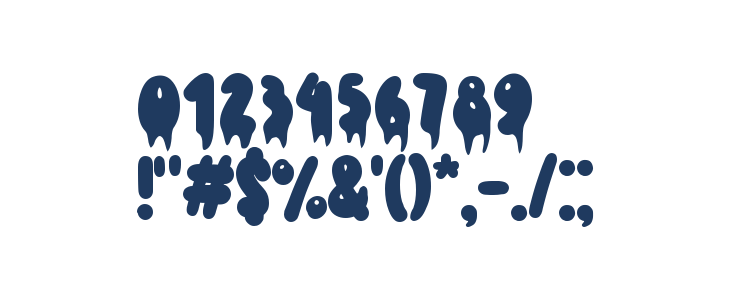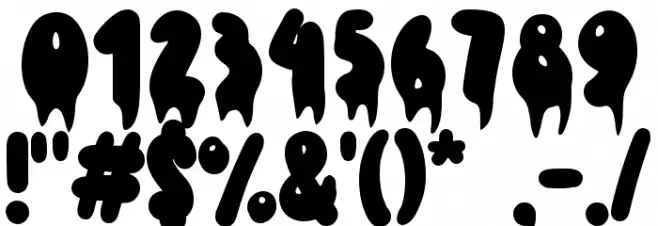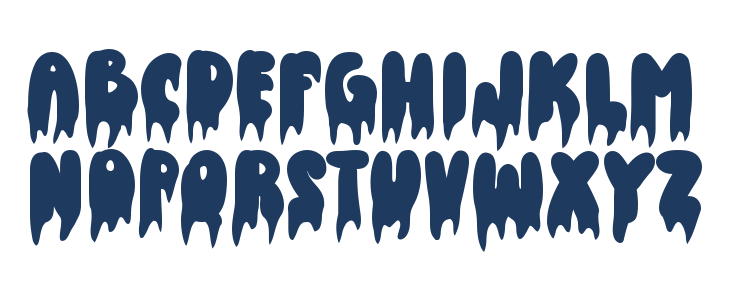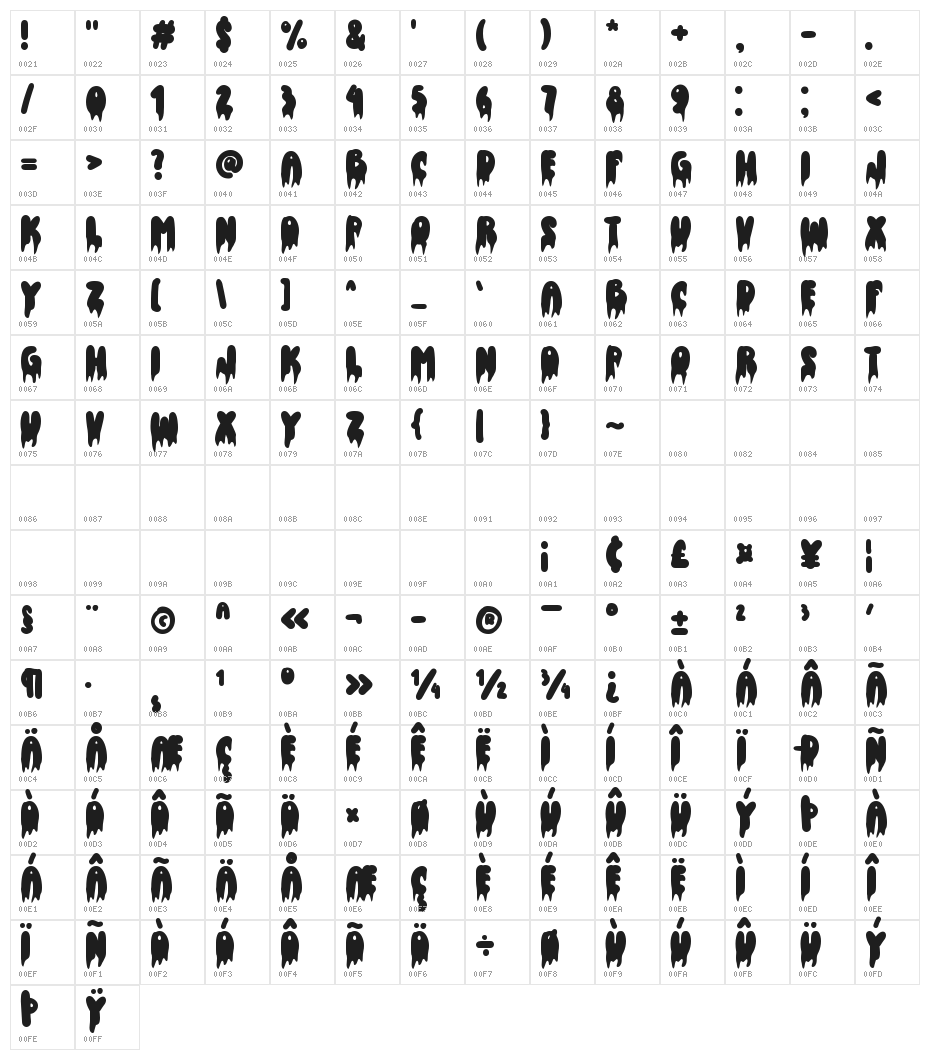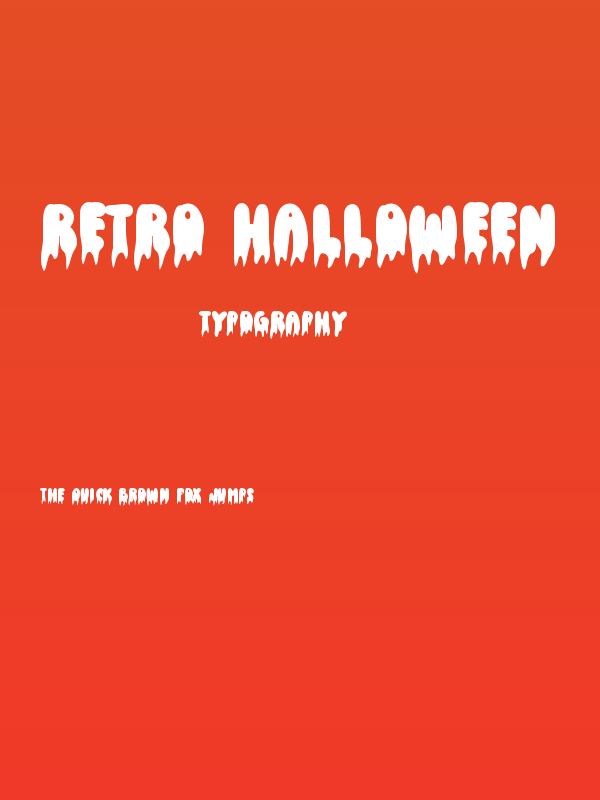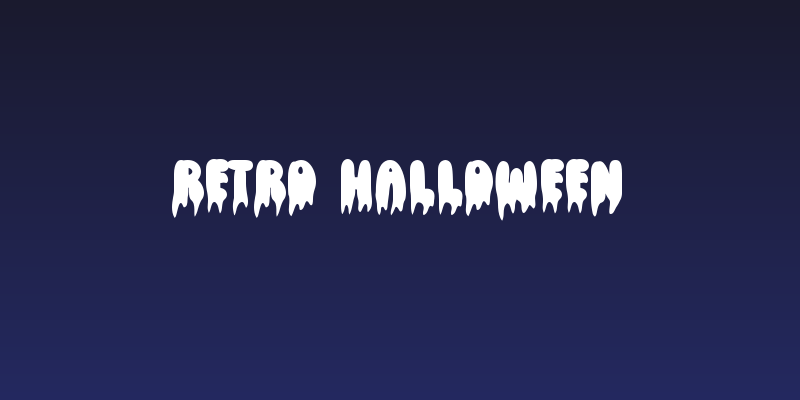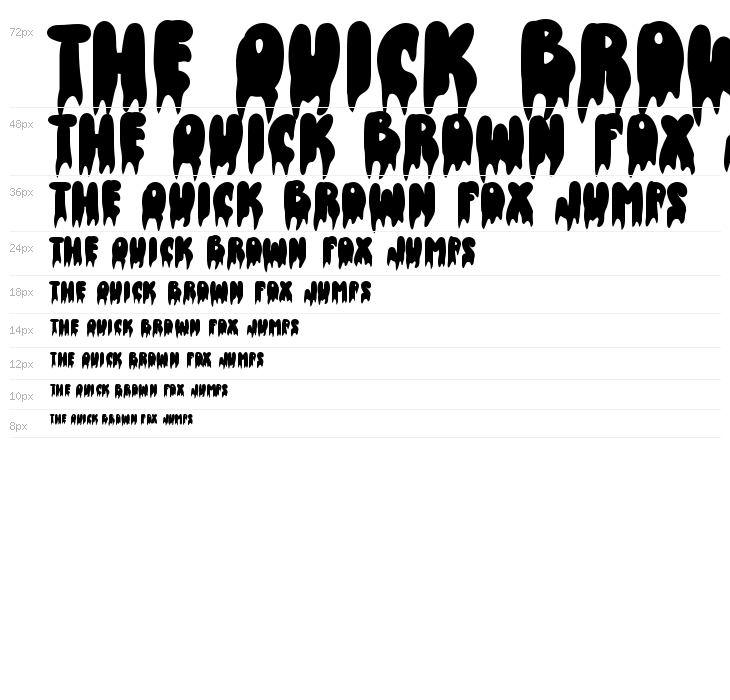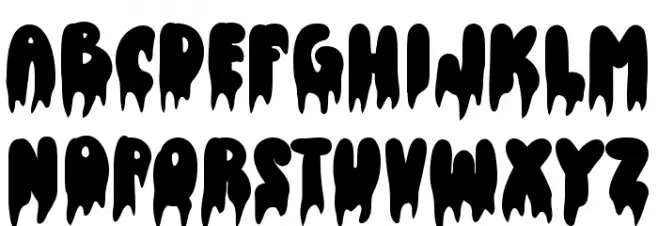
Retro Halloween Font
A bold, decorative display font with a dripping, gooey effect reminiscent of melted wax or slime, evoking a spooky and playful Halloween vibe. All characters are uppercase with exaggerated, rounded forms and irregular edges.
| Overall Style | Decorative, Retro, Spooky |
| Use Case | Headlines, Posters, Logos, Event Titles |
| Proposed Projects | Halloween posters, party invitations, themed event branding, horror movie titles, seasonal merchandise, childrenΓ’β¬β’s spooky books. |